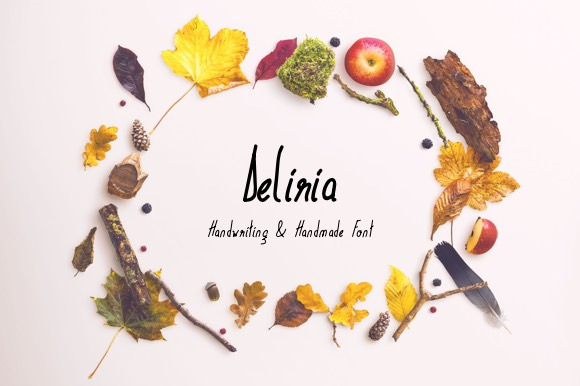
Deliria Handwriting Font
A marvelous hand writing font containing upper & lowercase characters, numerals and a large range of punctuation to help you make beautiful creative projects in all design areas.